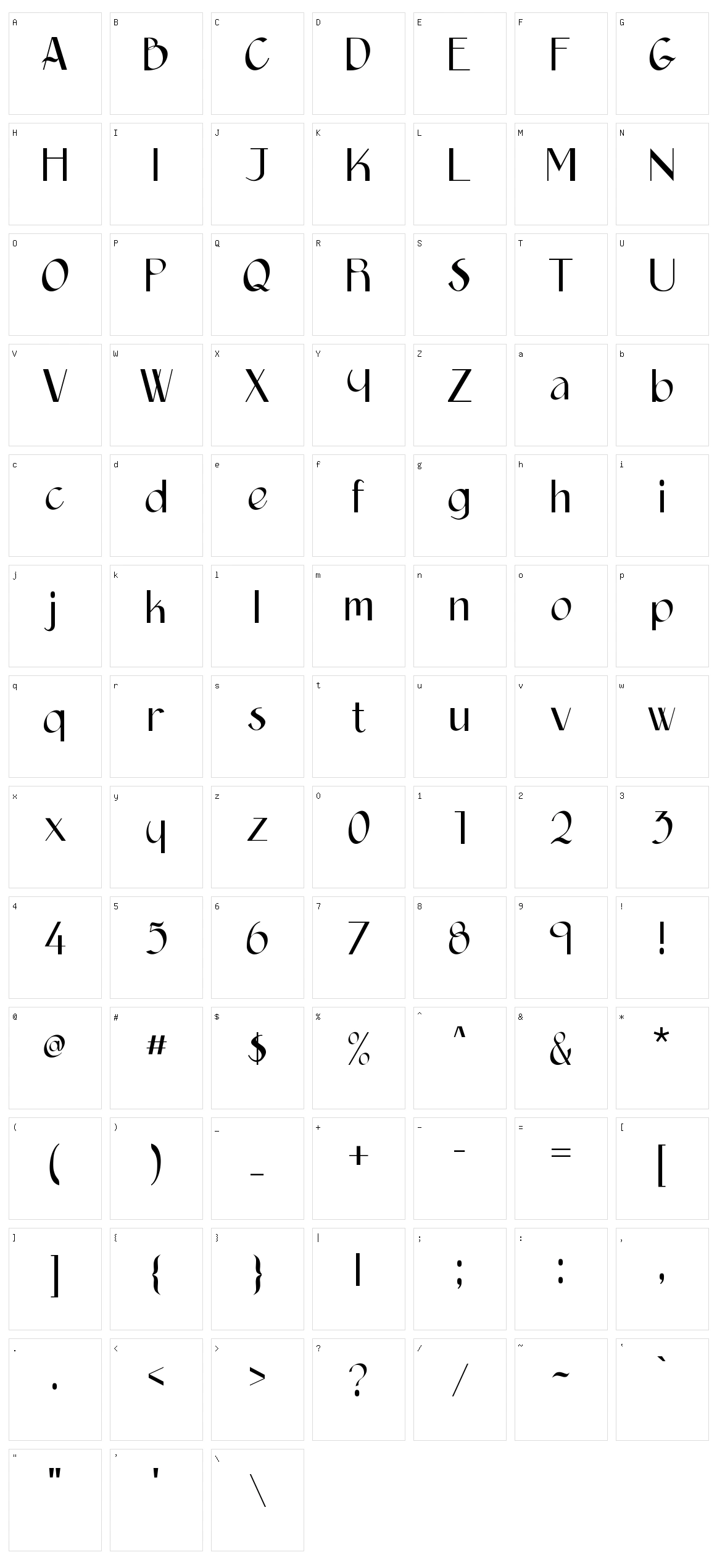
The free font Epittazio is carefully designed by Juca Basso, showcasing a thoughtful balance of creativity and usability and falls under the Sans serif font style. When you download the ZIP file, it contains only 9.52 KB of font files, making it lightweight and quick to download. Please review the license details below to understand permitted usage and distribution rights. If license information is not available, we recommend using this font for personal projects only or contacting the author directly for commercial usage permissions.